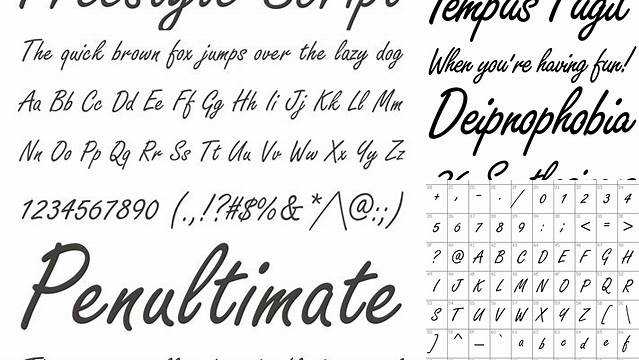
Freestyle Script Regular Font: Design Guide & Uses
Are you looking to add a touch of elegance and personality to your designs? Look no further! The Freestyle Script Regular font is a distinctive typeface known for its flowing, handwritten style. This article dives deep into everything you need to know about this popular font, from its origins and characteristics to its best uses and alternatives. Whether you're a seasoned designer or just starting out, you'll find valuable insights to enhance your typographic skills. So, let's get started and explore the fascinating world of Freestyle Script Regular!
What is Freestyle Script Regular?
Freestyle Script Regular is a script typeface designed by Martin Waitz in 1981. Its defining feature is its irregular, sweeping strokes, giving it a natural, handwritten appearance. Unlike more formal scripts, Freestyle Script exudes a casual, playful vibe, making it suitable for a wide range of design applications. The font's unique charm lies in its ability to mimic the imperfections and spontaneity of actual handwriting, adding a personal touch to any project. It's widely recognized and often used to convey a sense of warmth, creativity, and informality. Freestyle Script Regular stands out because of its distinctive letterforms and flowing connections between characters, which create a sense of movement and energy. The font is designed to look as though it was written quickly and freely, giving it an authentic and approachable feel. Its strokes vary in thickness, adding to the handcrafted look. The typeface maintains a consistent slant, contributing to its overall rhythm and coherence. All these elements combined make Freestyle Script Regular a popular choice for designers seeking a typeface that balances style and readability.
Key Characteristics of Freestyle Script Regular
Understanding the key characteristics of Freestyle Script Regular is crucial for using it effectively in your designs. Its unique features contribute to its overall aesthetic and determine the contexts in which it shines. Freestyle Script's defining characteristics include its flowing, connecting strokes that mimic handwriting, its irregular letterforms that add a touch of spontaneity, and its overall casual and friendly appearance. The font also features a distinctive slant, which enhances its sense of movement and energy. Unlike formal scripts, which can sometimes appear stiff or overly polished, Freestyle Script Regular has a more relaxed and approachable feel. Its strokes vary in thickness, creating a dynamic and engaging visual texture. This variation is particularly noticeable in the ascenders and descenders of the letters, which add to the font's overall expressiveness. In addition, Freestyle Script maintains a relatively consistent x-height, which improves its readability, especially in longer texts. The connections between letters are carefully designed to ensure smooth transitions and a natural flow, enhancing the font's overall coherence. Freestyle Script Regular is also characterized by its relatively light weight, which makes it suitable for both print and digital applications. Its versatility extends to various design contexts, from invitations and greeting cards to logos and branding materials. The font’s unique blend of informality and elegance makes it a popular choice for designers seeking to add a personal and stylish touch to their projects.
Best Uses for Freestyle Script Regular
Freestyle Script Regular can add a unique and personal touch to various design projects. Its casual and flowing style makes it particularly well-suited for applications where you want to convey a sense of warmth, creativity, and informality. Consider using Freestyle Script for invitations, greeting cards, and personalized notes, where its handwritten appearance can add a special touch. It's also an excellent choice for branding materials, such as logos and business cards, especially for businesses that want to project a friendly and approachable image. In the realm of web design, Freestyle Script Regular can be used for headings, subheadings, and call-to-action buttons to draw attention and create a visually appealing interface. The font's distinctive style can also be used effectively in social media graphics, posters, and flyers to create eye-catching designs that stand out from the crowd. It's particularly useful for projects related to creative industries, such as photography, fashion, and art, where its artistic flair can enhance the overall aesthetic. Freestyle Script Regular can also be employed in packaging design to add a handmade or artisanal feel to products. However, it's essential to use the font sparingly and in combination with more legible typefaces to ensure readability, especially in body text. The font's unique characteristics make it a valuable asset for designers looking to add a personal and stylish touch to their work.
Examples of Freestyle Script Regular in Design
To truly appreciate the versatility of Freestyle Script Regular, let's explore some real-world examples of how it's been used in design. You'll often see this font gracing wedding invitations, adding a touch of elegance and personalization to the special occasion. Its flowing script creates a romantic and intimate feel, perfect for setting the tone for the big day. Many small businesses and boutiques also utilize Freestyle Script in their logos and branding materials. Its unique and memorable appearance helps them stand out from the competition and convey a sense of creativity and individuality. In the world of social media, Freestyle Script Regular is a popular choice for creating eye-catching graphics and quotes. Its informal and friendly style makes it ideal for engaging with audiences and creating a personal connection. You might also find it used in greeting cards and personalized gifts, adding a handcrafted touch that makes the item feel more special and meaningful. Many websites use it for headings to draw attention and create a visually appealing interface. Consider how Freestyle Script is used in product packaging for artisanal goods, giving the product a premium and handcrafted feel. These examples demonstrate the wide range of applications for Freestyle Script Regular, showcasing its ability to add a touch of personality and style to any design.
Alternatives to Freestyle Script Regular
While Freestyle Script Regular is a beautiful and versatile font, it may not always be the perfect choice for every project. Fortunately, there are several excellent alternatives that offer similar aesthetics and can be used in different contexts. Brush Script MT is another popular script typeface with a similar handwritten feel, but with slightly bolder strokes. It's a good alternative if you need a font that stands out a bit more. Edwardian Script ITC is a more elegant and formal script font, perfect for projects that require a touch of sophistication. Its refined letterforms and delicate strokes make it ideal for wedding invitations and upscale branding materials. Lobster Two is a bold and modern script font that offers a more contemporary take on the handwritten style. It's a great choice for projects that need a balance of personality and readability. Pacifico is a casual and friendly script font that's perfect for creating a relaxed and approachable vibe. Its rounded letterforms and playful design make it ideal for social media graphics and informal invitations. Another option is Cookie, which provides a sweet, handwritten look to any design. These alternatives provide a range of options that can be used to achieve similar effects, depending on the specific needs of your project. It's always a good idea to experiment with different fonts to find the one that best captures the desired mood and message. By exploring these alternatives, you can expand your typographic toolkit and create even more compelling designs.
Tips for Using Freestyle Script Regular Effectively
To make the most of Freestyle Script Regular, consider these practical tips. Avoid overuse; use Freestyle Script sparingly, primarily for headings, logos, or accents, as excessive use can reduce readability and diminish its impact. Pair it wisely, combining Freestyle Script Regular with simpler, more legible sans-serif or serif fonts for body text to ensure a balance between style and readability. Pay attention to sizing and spacing; adjust the font size and letter spacing to ensure that the script is easily readable, especially in digital applications. Consider contrast; use Freestyle Script on backgrounds that offer sufficient contrast to make the text stand out, avoiding busy or cluttered backgrounds that can obscure the font. Test readability across devices, especially when using it online. Ensure that the font renders clearly on different screens and browsers. Use it purposefully, carefully considering the context of your design and whether the font's casual and informal style aligns with your message and brand. Customize when possible, modifying letter spacing or adding subtle effects to make the font unique to your project. By following these guidelines, you can effectively harness the beauty and versatility of Freestyle Script Regular while ensuring that your designs remain clear, legible, and visually appealing. Experiment with these tips to see how they work in different projects and discover new ways to enhance your designs.
In conclusion, Freestyle Script Regular is a versatile and distinctive font that can add a touch of elegance and personality to various design projects. Its flowing, handwritten style makes it particularly well-suited for applications where you want to convey a sense of warmth, creativity, and informality. Whether you're designing wedding invitations, branding materials, or social media graphics, Freestyle Script can help you create eye-catching designs that stand out from the crowd. By understanding its key characteristics, exploring its best uses, and considering its alternatives, you can effectively harness the beauty and versatility of this popular font. Remember to use it sparingly, pair it wisely, and pay attention to sizing and spacing to ensure readability and visual appeal. With these tips in mind, you can confidently incorporate Freestyle Script Regular into your designs and create stunning visuals that capture attention and communicate your message effectively. So go ahead, experiment with Freestyle Script and discover the unique charm it brings to your creative endeavors! Guys, happy designing!